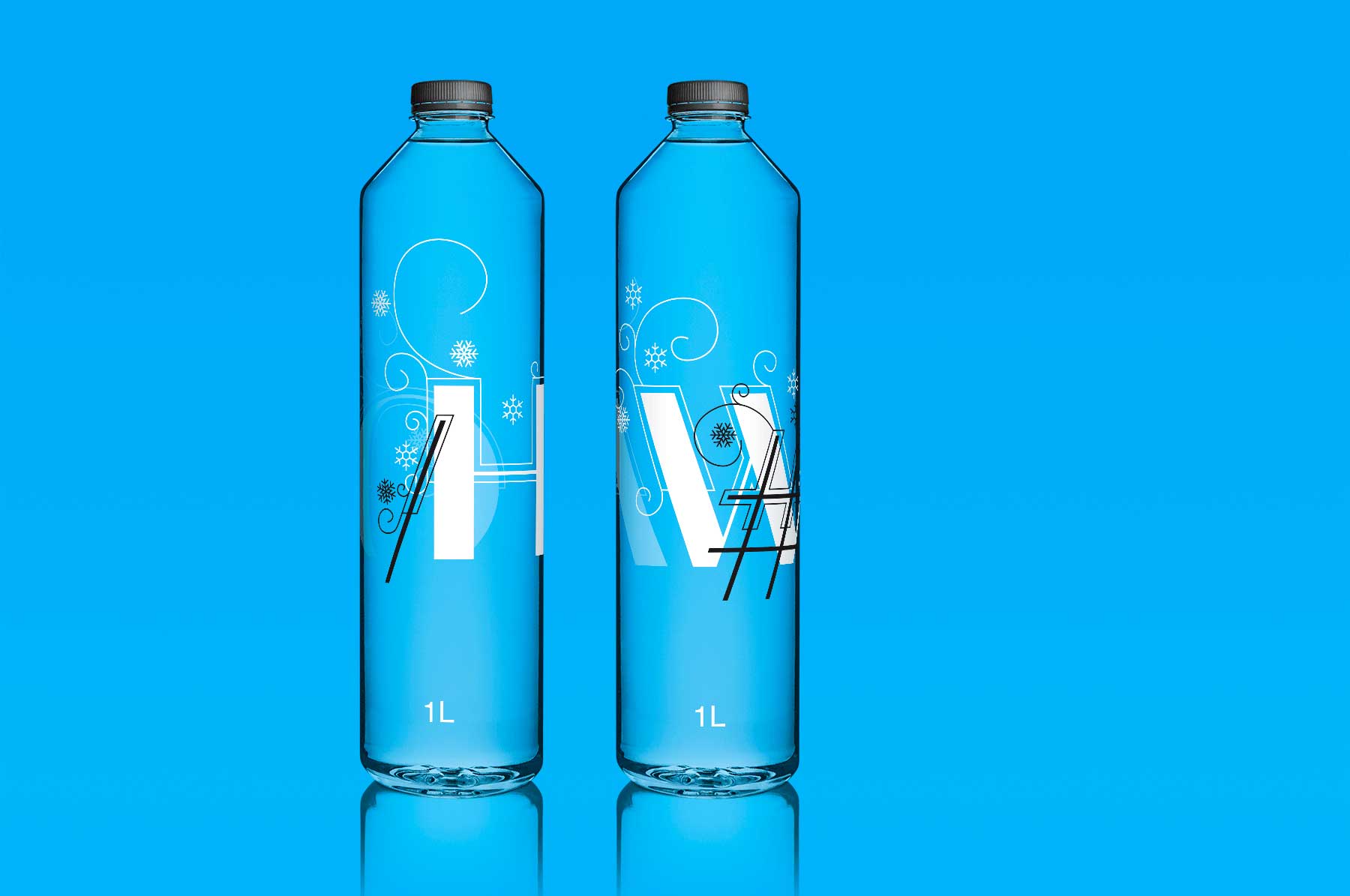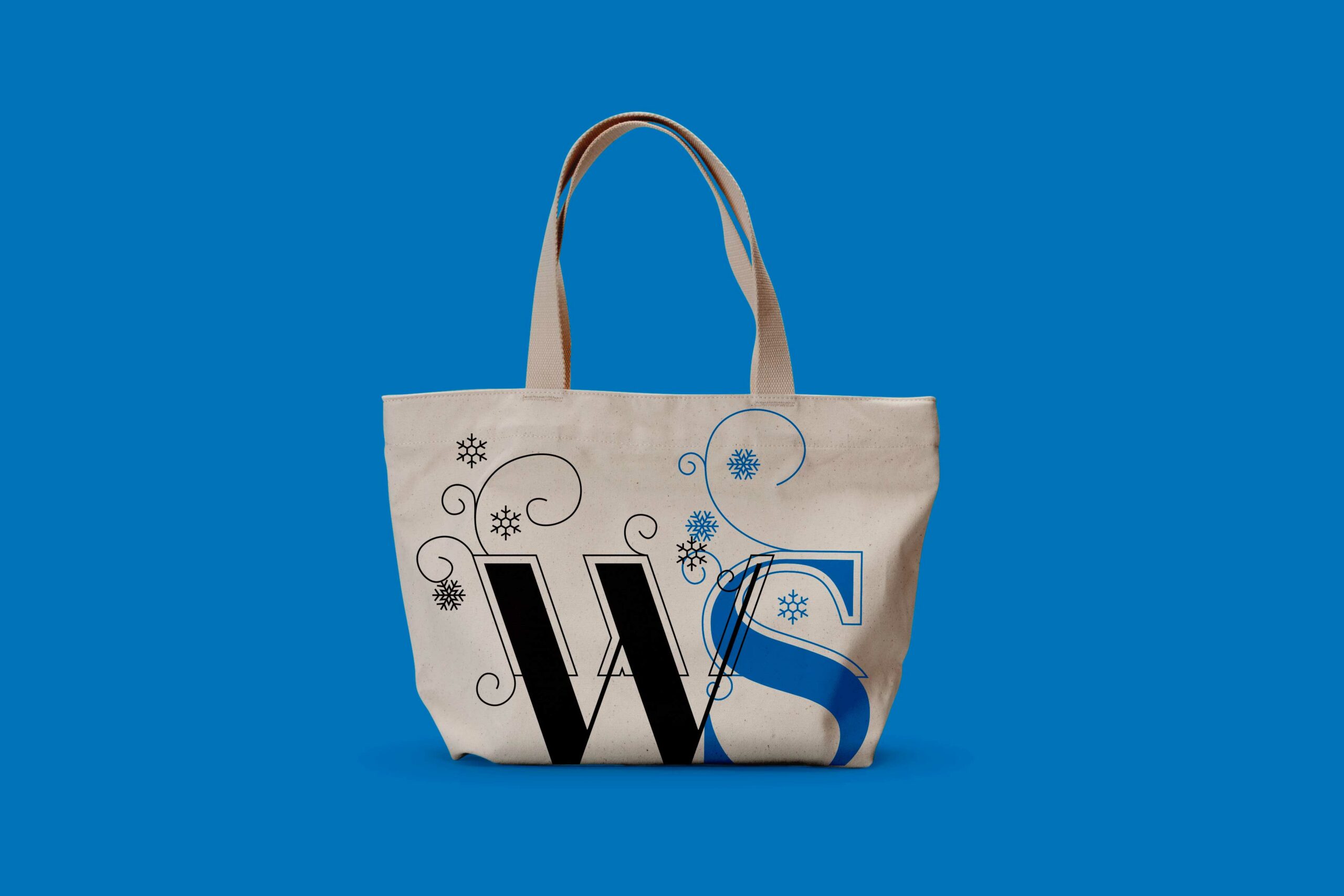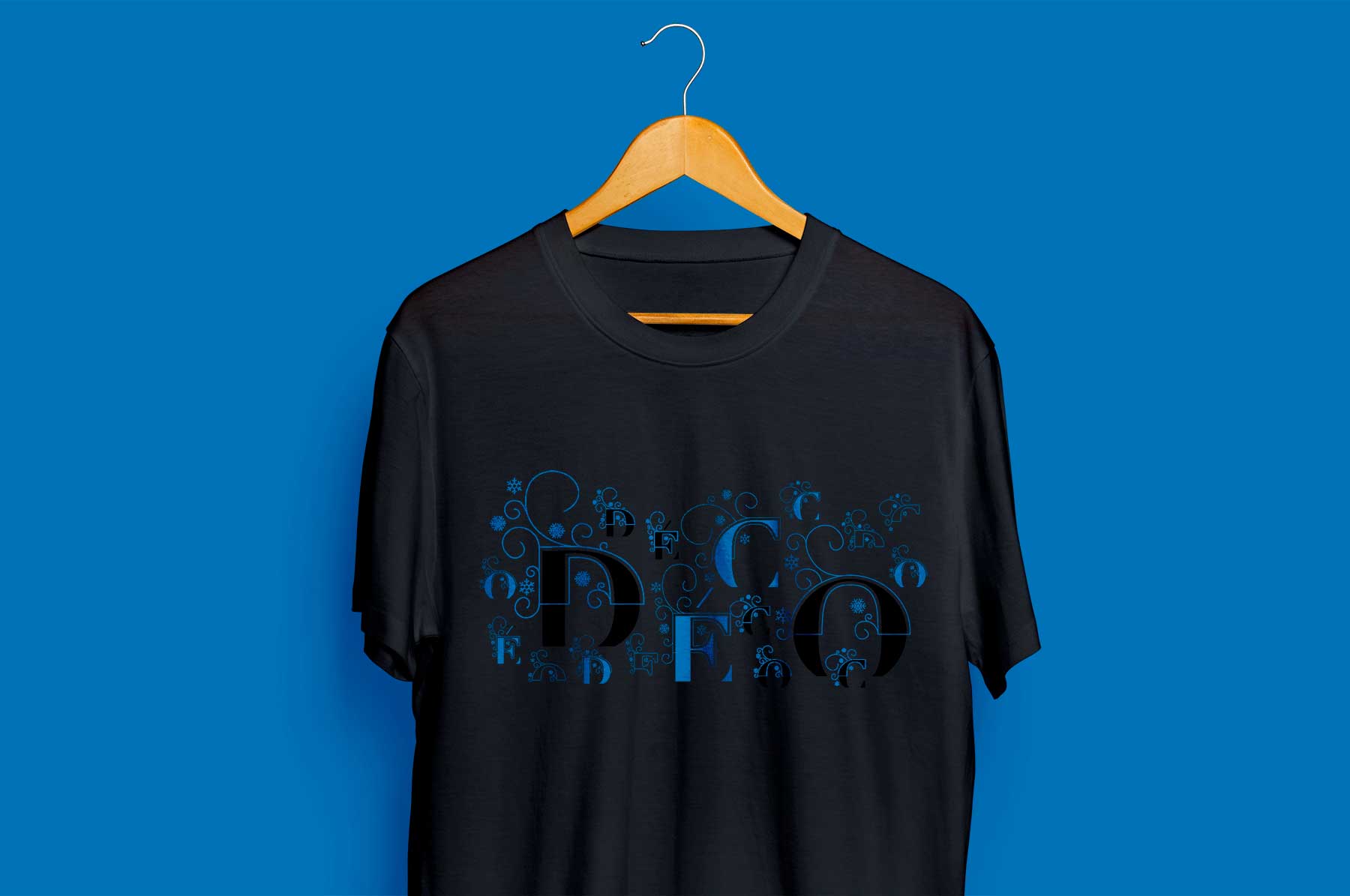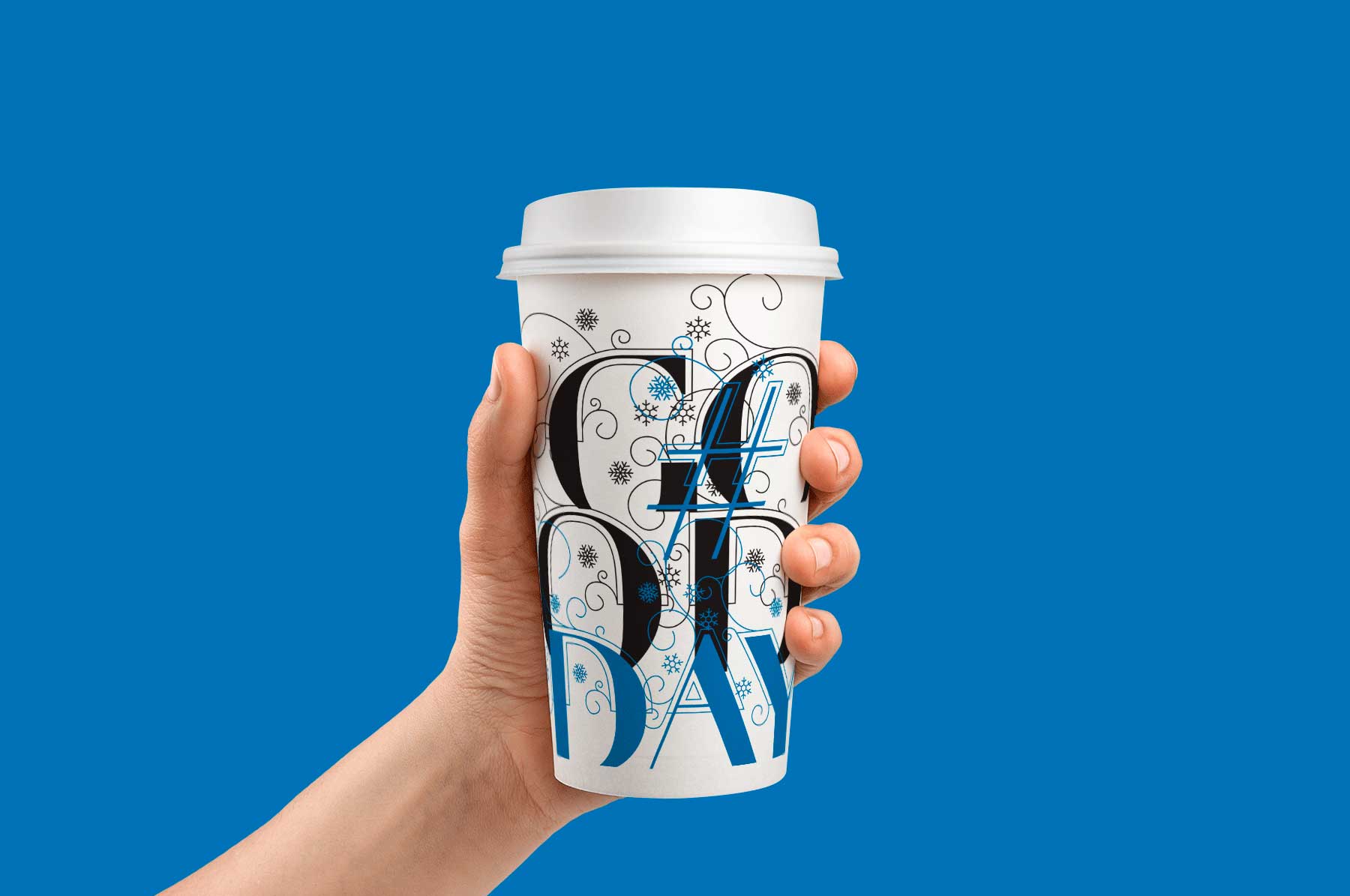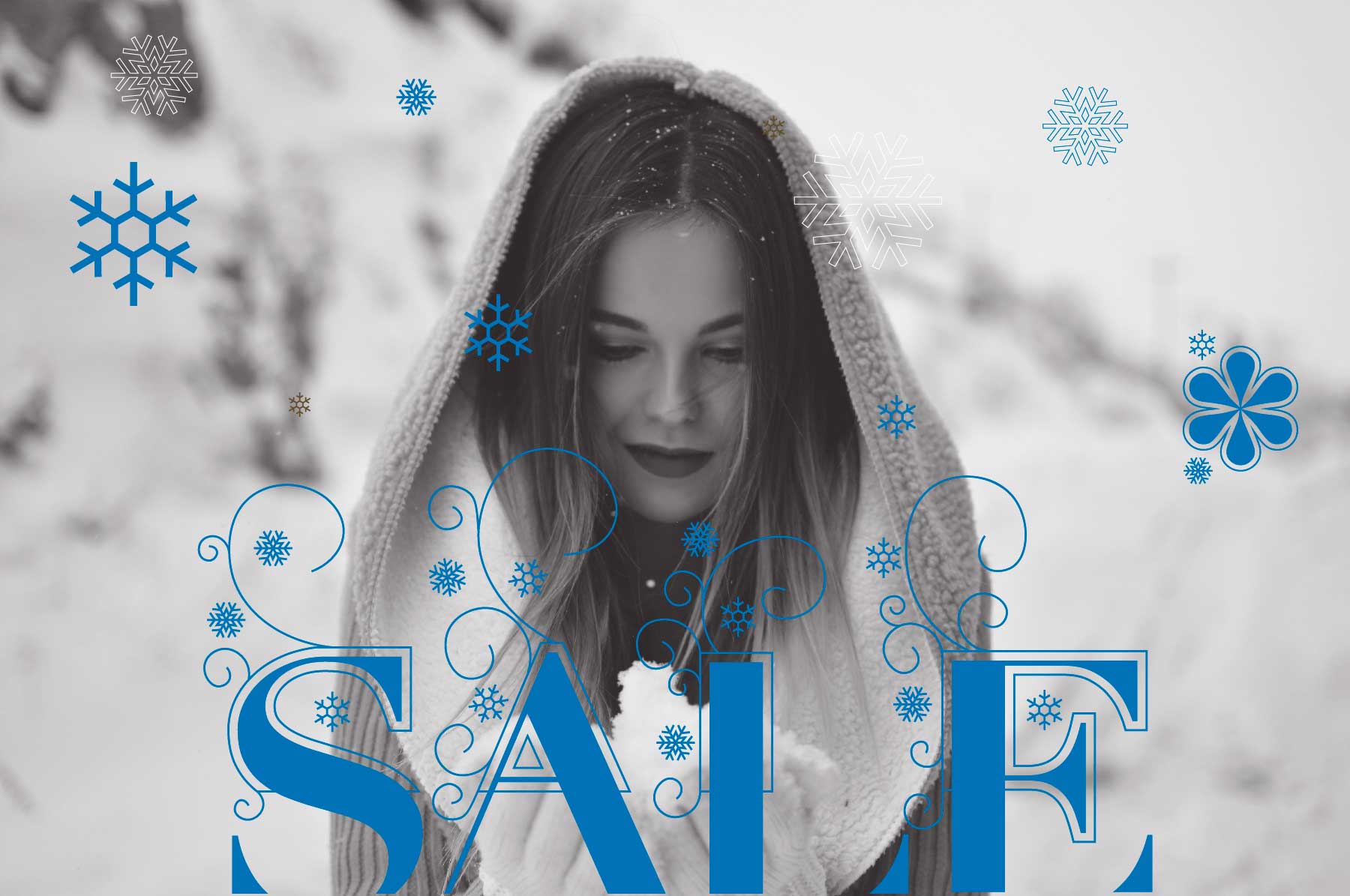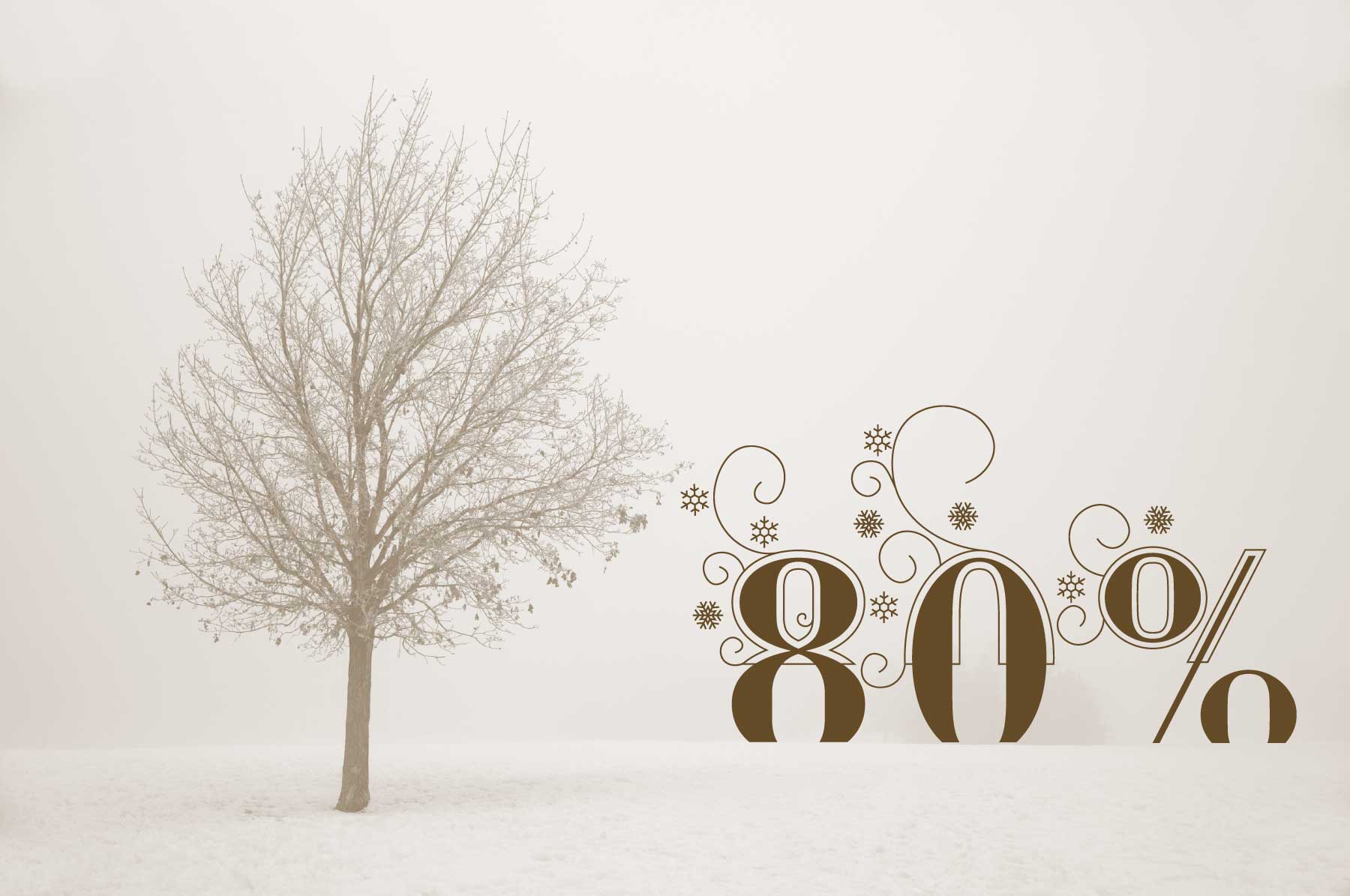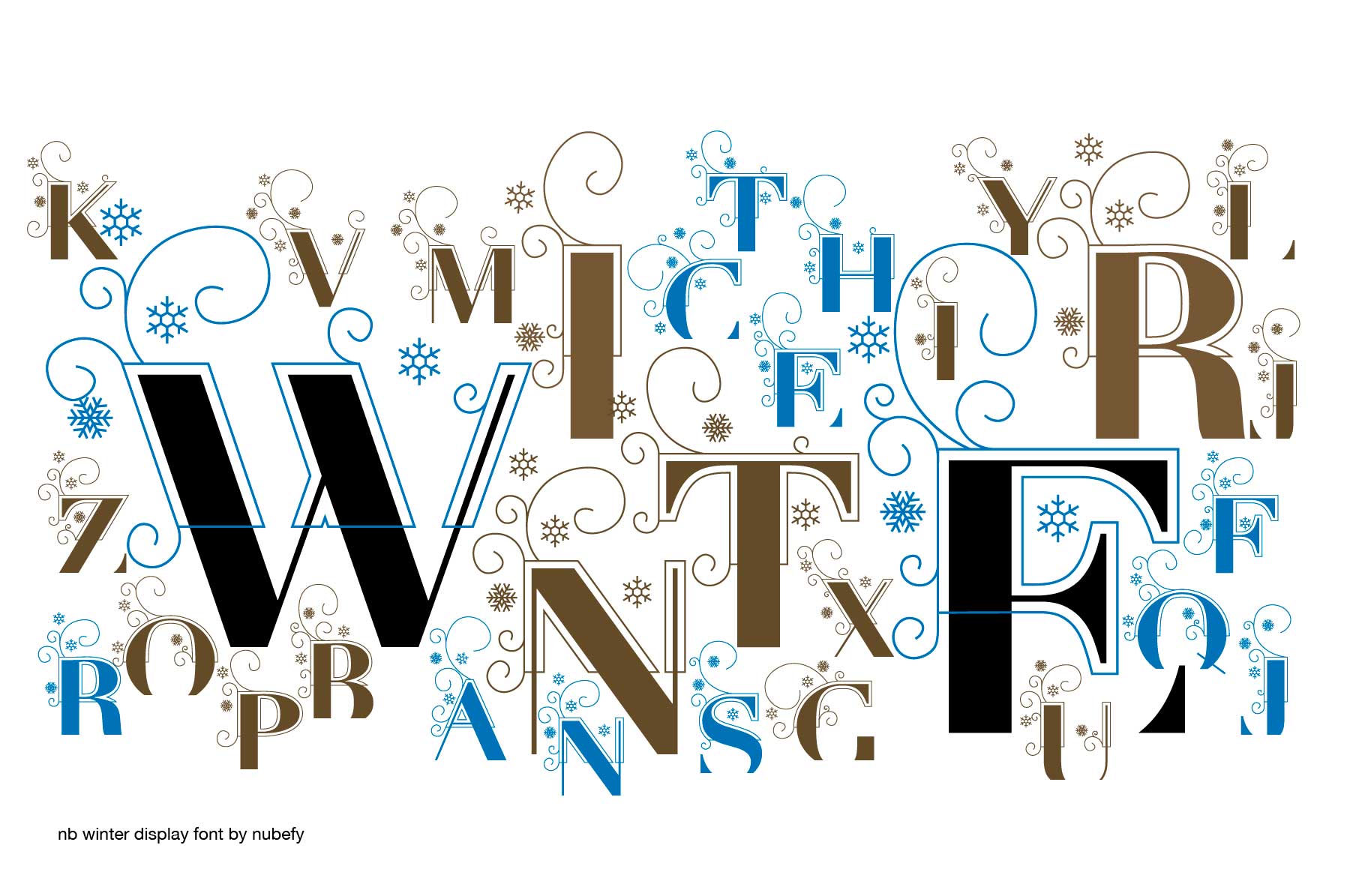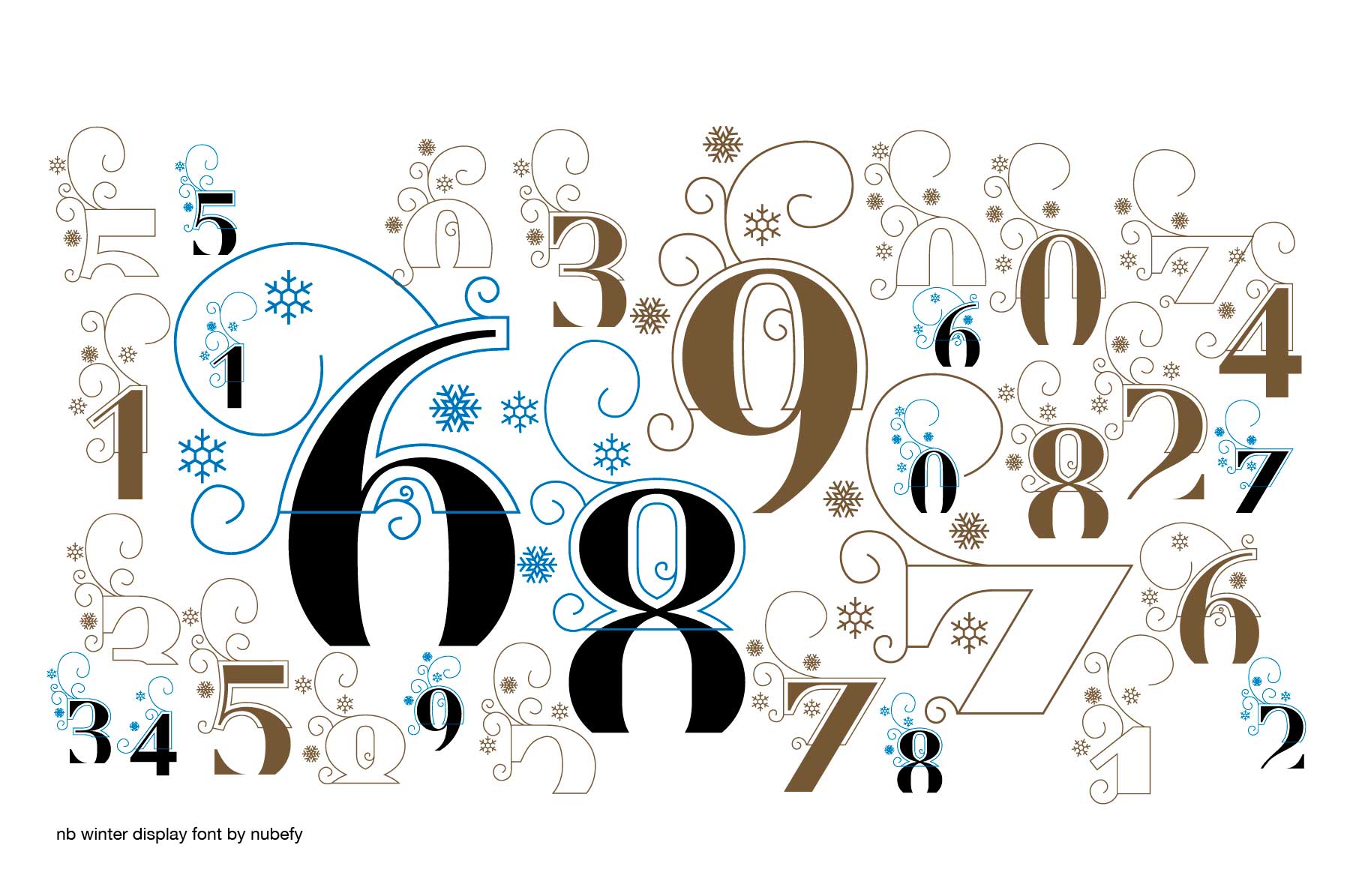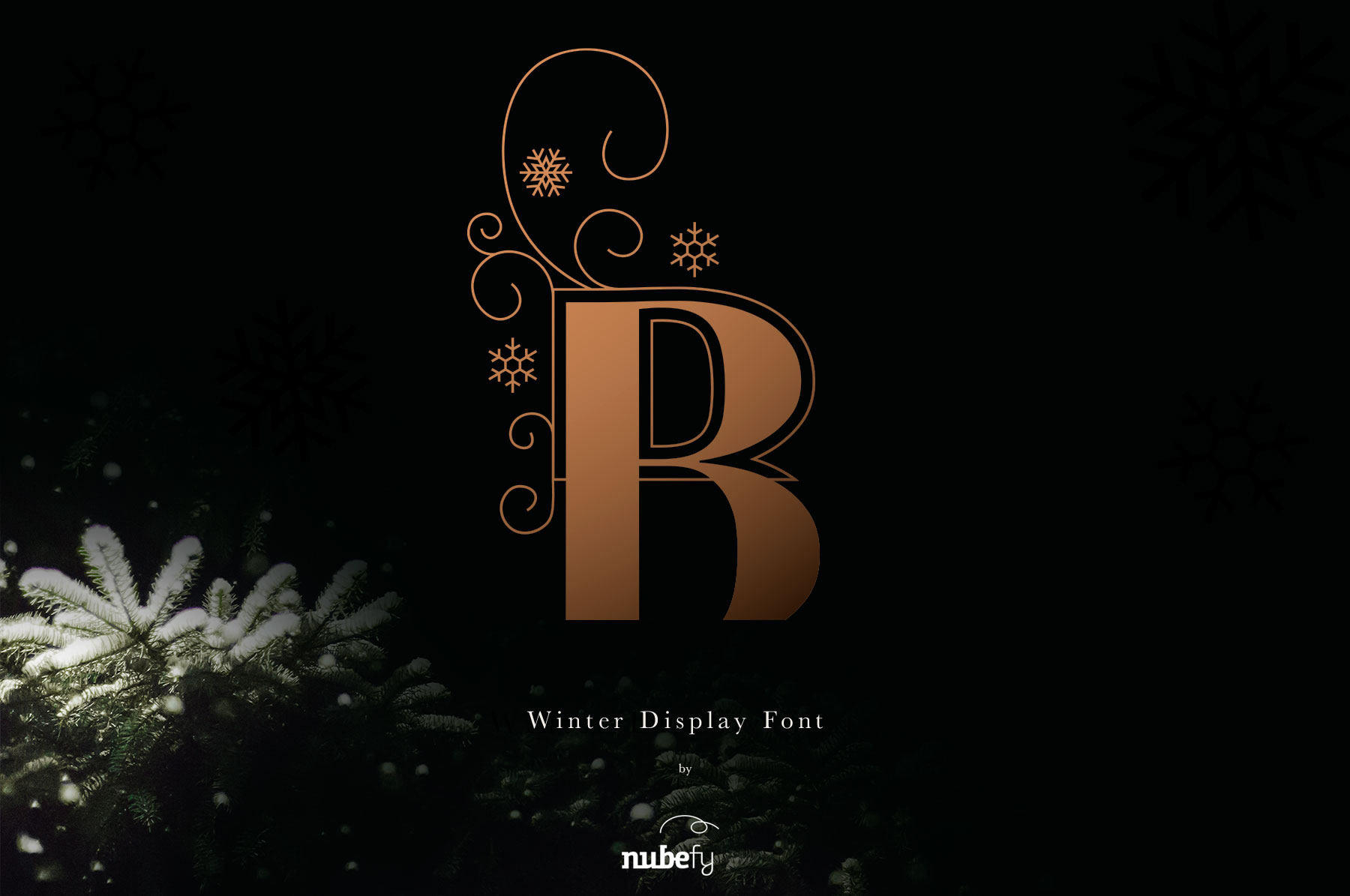
Winter Color Font
Introducing the Winter Fonts package, a collection of display typefaces designed to evoke a sense of enchantment and create a magical atmosphere in your communication.
The Winter Fonts package includes three styles: Winter Regular, Winter Light, and Winter Extra Light. Each style offers its unique characteristics, allowing you to choose the perfect font to convey your message effectively.
The Winter Fonts package is ideal for various design purposes, including creating captivating headlines, designing promotional materials, crafting invitations for winter-themed events, and adding a touch of magic to your branding or identity. The fonts’ unique styles and enchanting elements will help you create a visually appealing and immersive experience for your audience.
Unlock the magic of Winter Fonts and let them transport your designs into a world of wonder and charm.